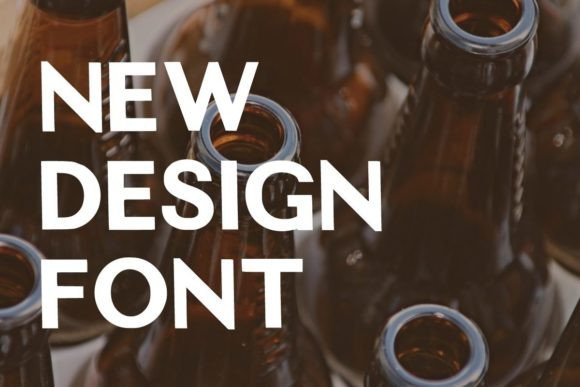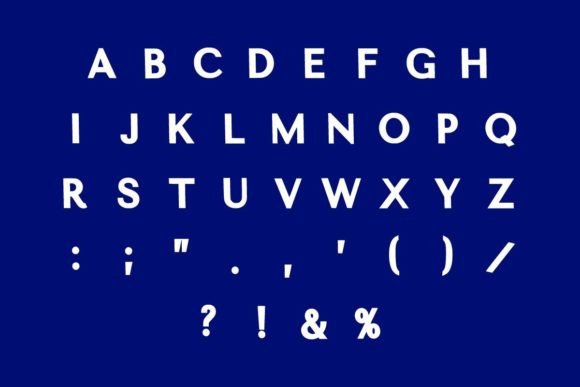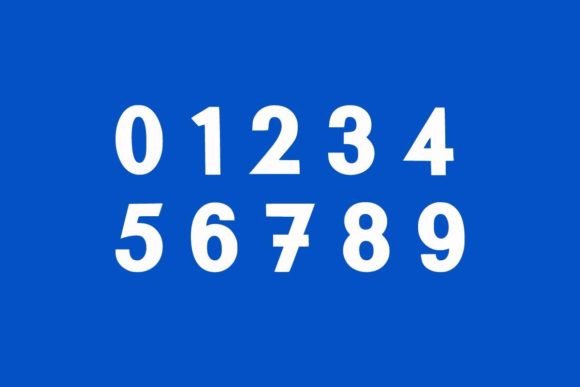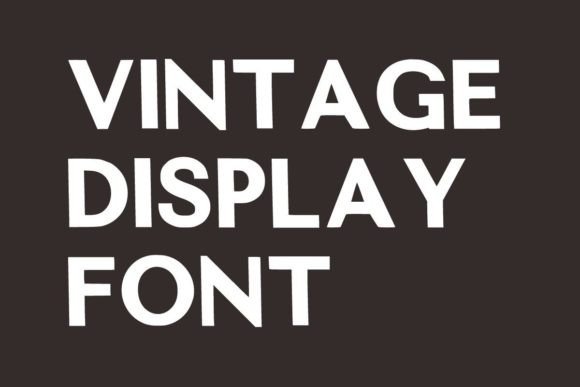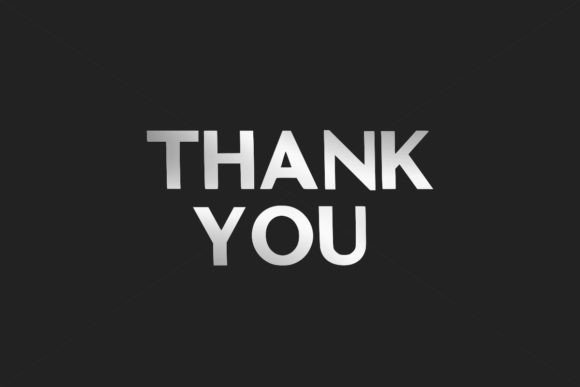
Frost Font: The Ultimate Display Font for Designers and Crafters
Are you tired of using the same old fonts for your designs and crafts? Look no further than Frost Font, a cool, original, vintage, and easy-to-read display font that’s perfect for a variety of projects. Whether you’re a designer, crafter, or social media enthusiast, Frost Font has the potential to become your new go-to font.
What is Frost Font?
Frost Font is a unique and stylish display font that’s designed to add a touch of elegance and sophistication to your designs. With its vintage feel and modern twist, this font is perfect for a wide range of projects, from digital designs and presentations to crafts and greeting cards.
Key Features of Frost Font
• Cool and Original: Frost Font is a one-of-a-kind font that’s sure to make your designs stand out from the crowd.
• Vintage Feel: With its classic and timeless design, Frost Font is perfect for projects that require a touch of nostalgia and elegance.
• Easy-to-Read: Despite its vintage feel, Frost Font is incredibly easy to read, making it perfect for digital designs, presentations, and crafts.
• Versatile: Frost Font can be used for a wide range of projects, from social media graphics and digital designs to greeting cards and crafts.
Uses for Frost Font
Frost Font is an incredibly versatile font that can be used for a wide range of projects. Here are just a few ideas to get you started:
• Crafts: Use Frost Font to add a personal touch to your crafts, from scrapbooking and card making to DIY projects and home decor.
• Social Media: Make your social media graphics stand out with Frost Font, perfect for creating eye-catching posts and stories.
• Digital Designs: Use Frost Font to add a touch of elegance to your digital designs, from brochures and flyers to posters and infographics.
• Presentations: Add a professional touch to your presentations with Frost Font, perfect for creating engaging and informative slides.
• Greeting Cards: Use Frost Font to create beautiful and personalized greeting cards for any occasion.
Why Choose Frost Font?
With so many fonts to choose from, why should you choose Frost Font? Here are just a few reasons:
• Unique and Original: Frost Font is a one-of-a-kind font that’s sure to make your designs stand out.
• Easy to Use: Frost Font is incredibly easy to use, even for those with limited design experience.
• Versatile: Frost Font can be used for a wide range of projects, making it a great addition to any designer’s toolkit.
• High-Quality: Frost Font is a high-quality font that’s designed to deliver exceptional results.
If you’re looking for a cool, original, vintage, and easy-to-read display font, look no further than Frost Font. With its unique design, versatility, and ease of use, this font is perfect for designers, crafters, and social media enthusiasts alike. Whether you’re creating digital designs, crafts, or greeting cards, Frost Font has the potential to become your new go-to font.